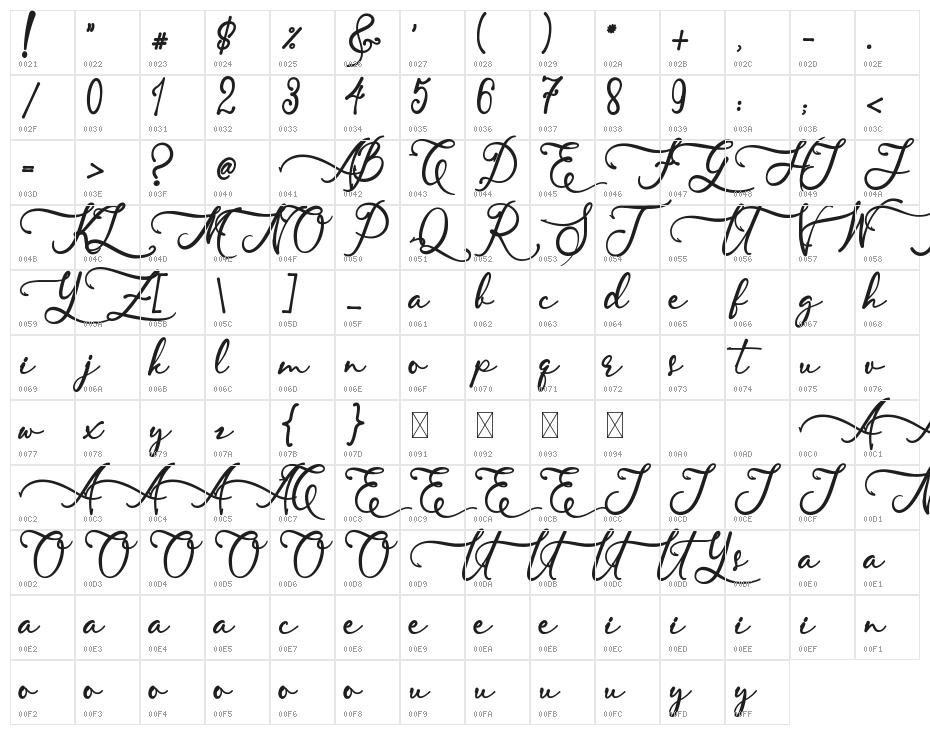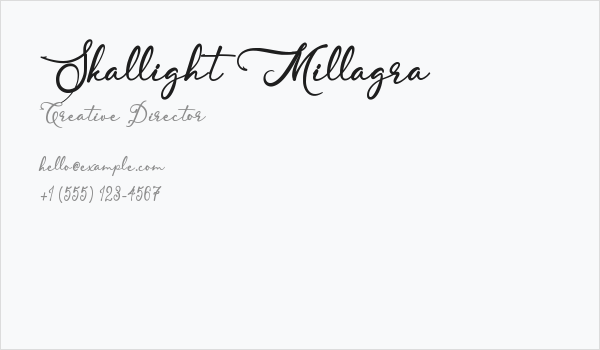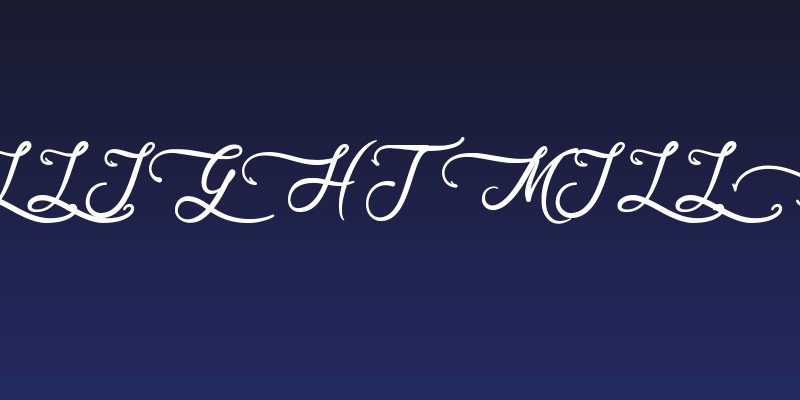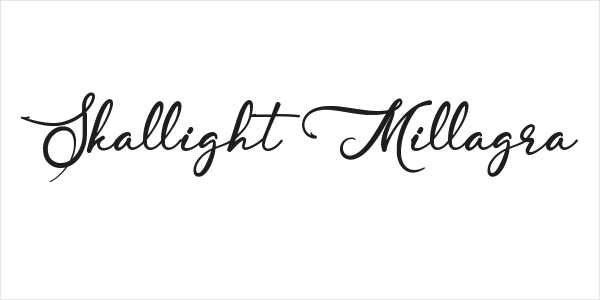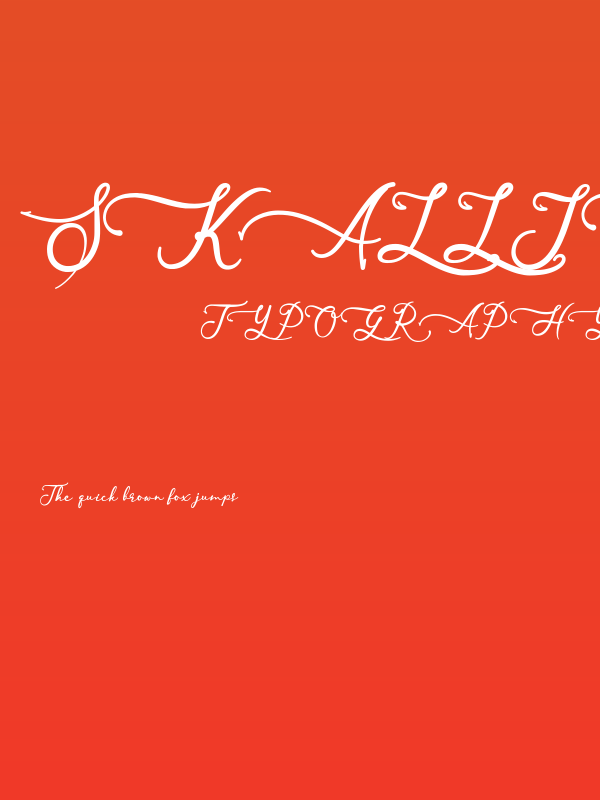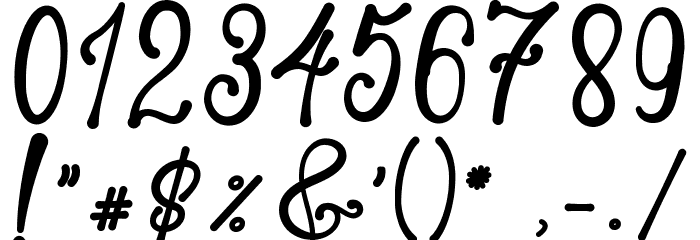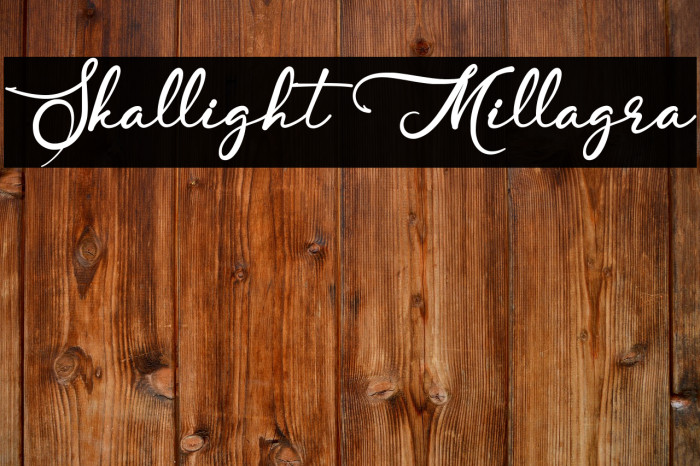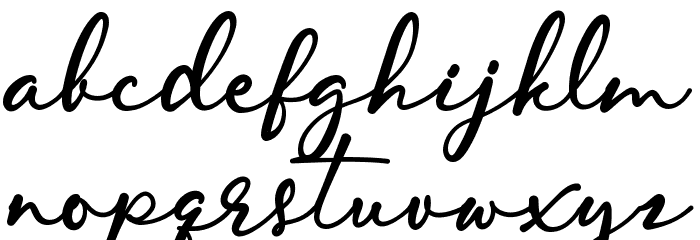
Skallight Millagra Font
Skallight Millagra Description
This font features an elegant and flowing script style, characterized by its smooth, cursive letterforms. The uppercase letters are adorned with graceful swashes, adding a touch of sophistication and flair. The lowercase characters maintain a consistent flow, with gentle curves and loops that enhance readability while retaining an artistic quality. The numerals are styled to match the script, offering a cohesive look across all characters. Special characters are thoughtfully designed, ensuring they blend seamlessly with the overall aesthetic. This font exudes a sense of elegance and creativity, making it ideal for projects that require a personal and artistic touch.
| Overall Style | Elegant |
| Use Case | Logos, Invitations, Decorative text |
| Proposed Projects | Ideal for wedding invitations, greeting cards, branding, and logo design. |